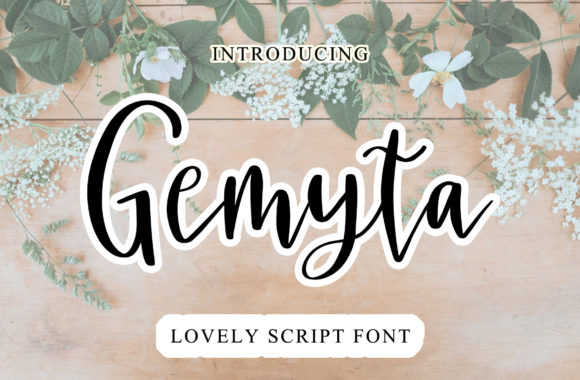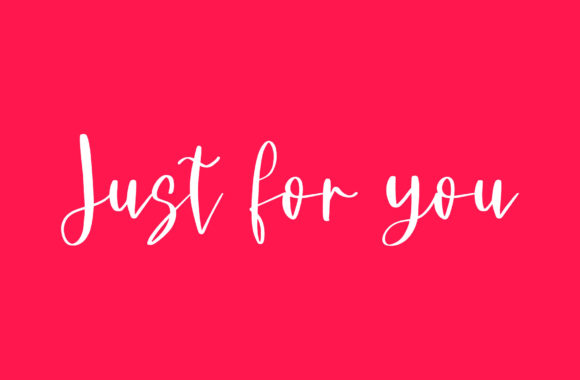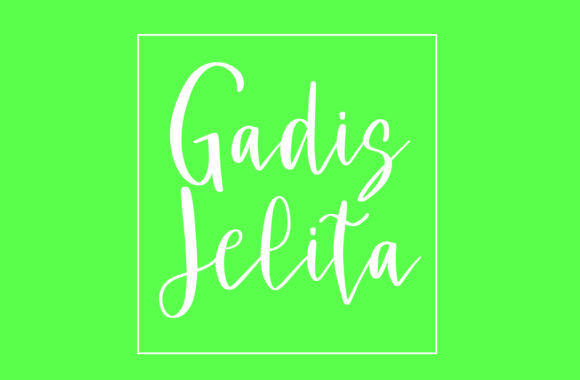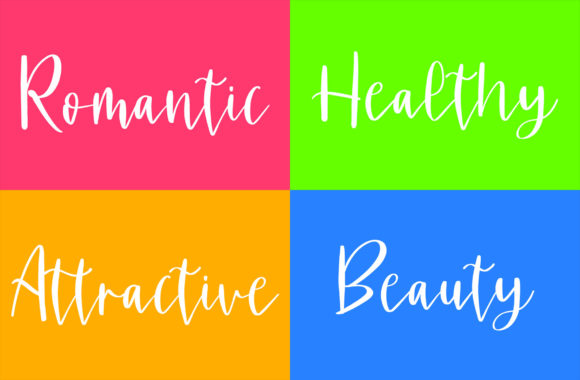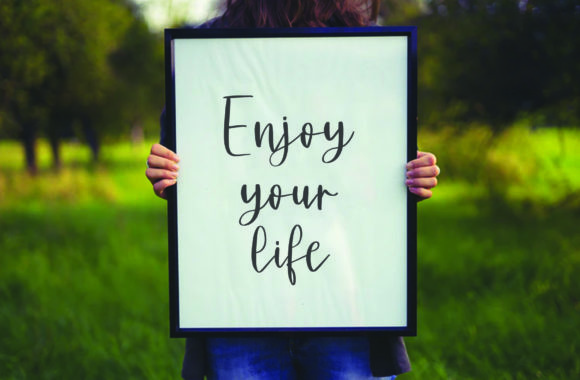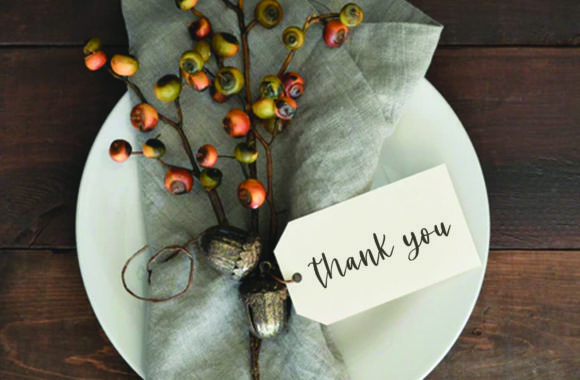
The Perfect Script: Unveiling Gemyta Font
Have you ever been working on a design project, and you just can’t seem to find the right font to capture the essence of your vision? I know I have. The frustration of scrolling through font libraries, trying to find that perfect script that adds a touch of elegance to your design, can be overwhelming. But, what if I told you that I’ve found a font that’s sure to change the game?
Introducing Gemyta Font, a delicate and lovely script font that exudes class and sophistication. Crafted specifically for designers who crave a beautiful and refreshing look for their designs, Gemyta Font is the perfect solution. Its elegant curves and refined lines make it an ideal choice for a variety of projects, from wedding invitations to luxury branding.
Gemyta Font Key Features
- Unique Characteristics: The font features a unique blend of modern and vintage elements, with intricate details and subtle texture, making it ideal for designs that require a touch of elegance and sophistication.
Gemyta Font Review
Overall, I have mixed feelings about the Gemyta font. While it has some nice features, it also has some limitations that might make it less suitable for certain projects.
- Unique design**: Gemyta has a distinctive and modern look that can add a touch of personality to your designs.
- Wide range of weights**: The font comes in multiple weights and styles, making it easy to find the perfect one to match your design needs.
- Good legibility**: Despite its modern design, Gemyta is still relatively easy to read, even at smaller font sizes.
- Limited language support**: Unfortunately, Gemyta only supports a limited number of languages, which might be a problem if you need to design for a global audience.
- Not ideal for body text**: While Gemyta is great for headlines and titles, it’s not the best choice for large blocks of body text, as it can become tiring to read.
Gemyta is a solid font that can be a great addition to your design arsenal, but it’s not a one-size-fits-all solution. It’s best suited for projects that require a modern, stylish look, and where language support is not a major concern.
Tips for Getting the Most Out of Gemyta Font
Use the Gemyta font for designs that require a modern, minimalist aesthetic.
Pair the Gemyta font with other sans-serif fonts for a clean and professional look.
Experiment with different font sizes and styles to create visual interest.
The Gemyta font is suitable for:
Business cards and letterheads
Brochures and flyers
Web design and UI elements
Presentations and reports